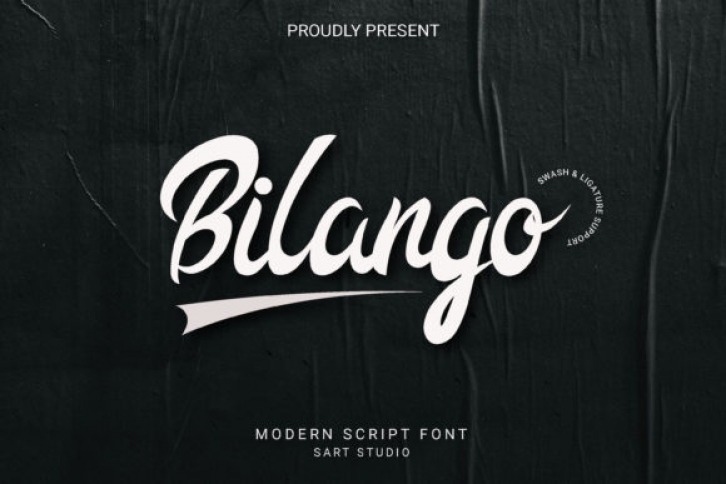
Bilango is a modern script font. It has a trendy flow and as a result, it will be the right match for a wide variety of designs. Add it confidently and notice how your designs come alive!